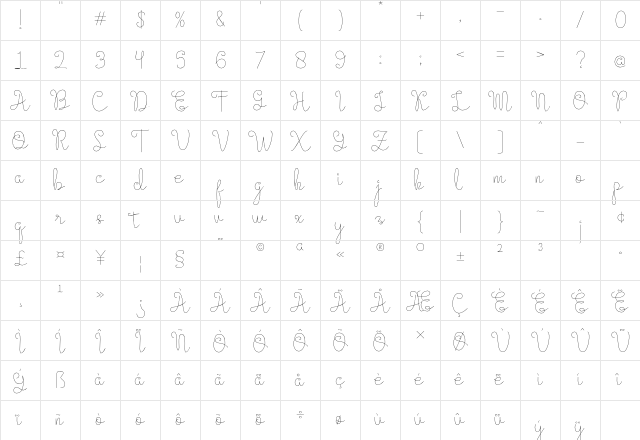
Complete Evangetta Thin Regular glyph index. Displaying only characters natively supported by Evangetta Thin Regular font.
Evangetta Thin is a composed and adaptable typeface that performs quietly and consistently across a wide range of design contexts. Its slender proportions lend an understated elegance to any composition.